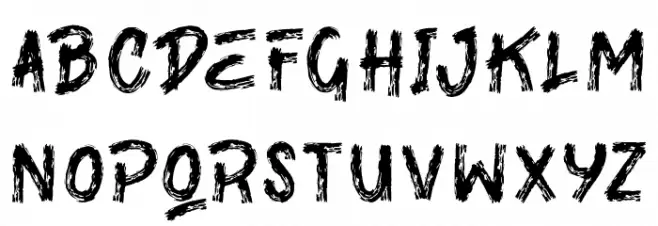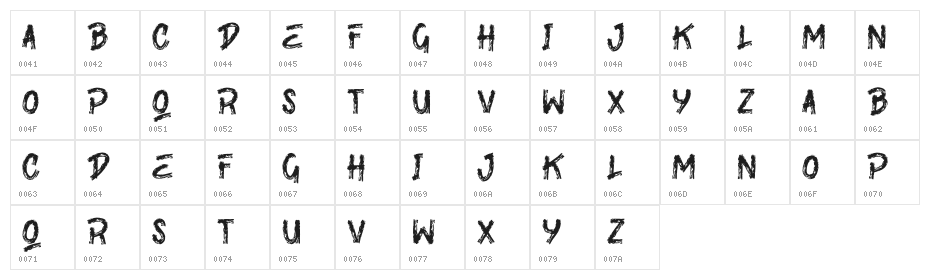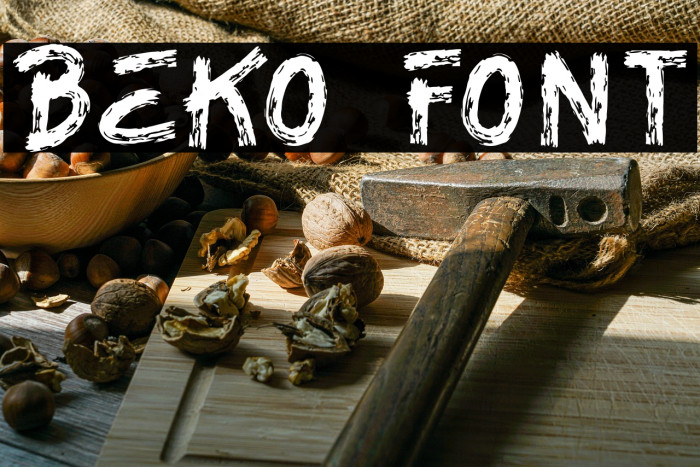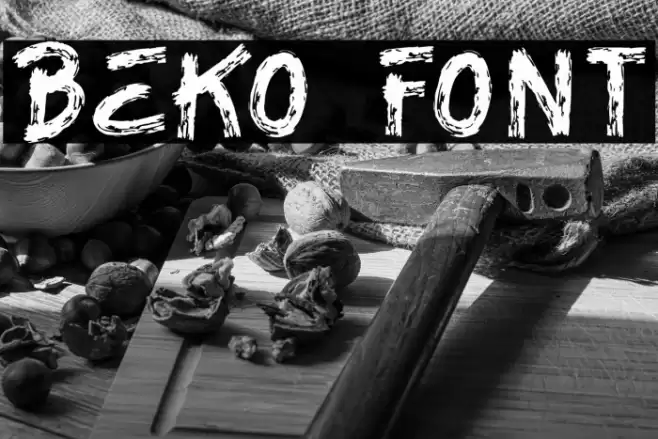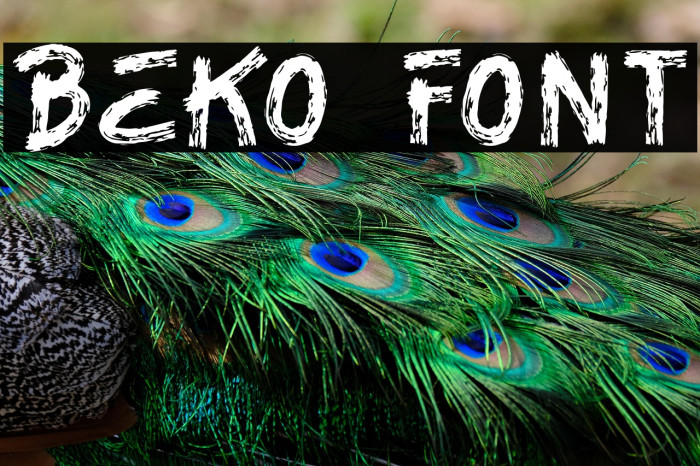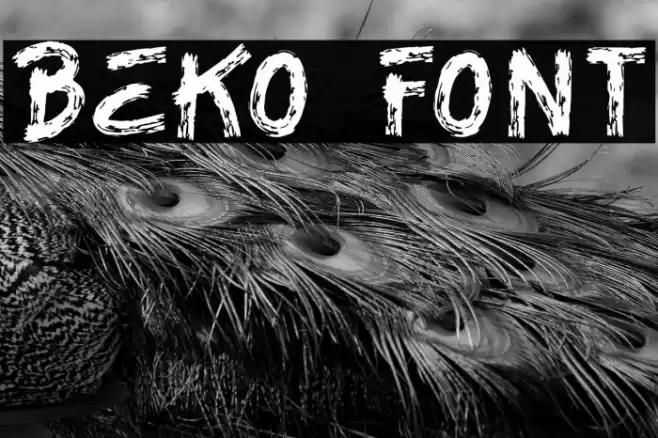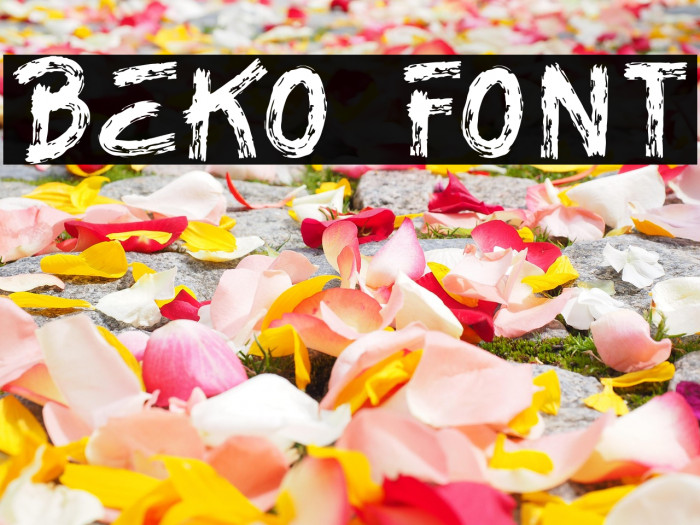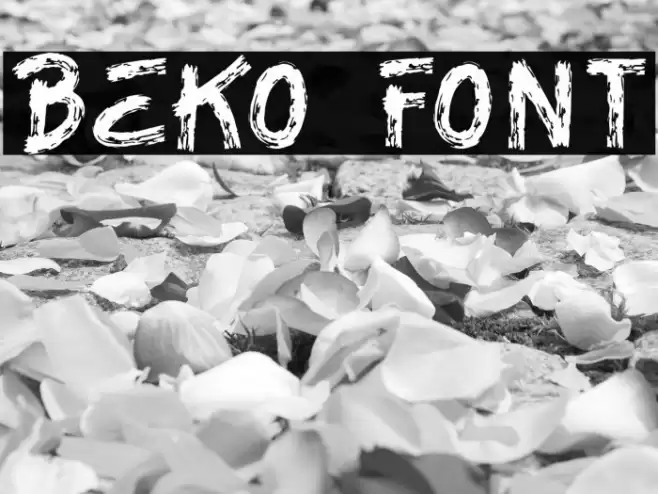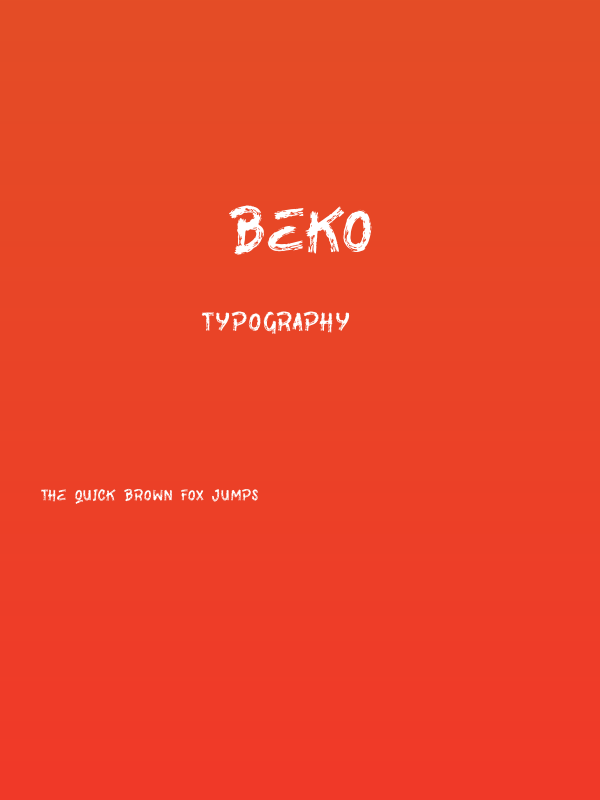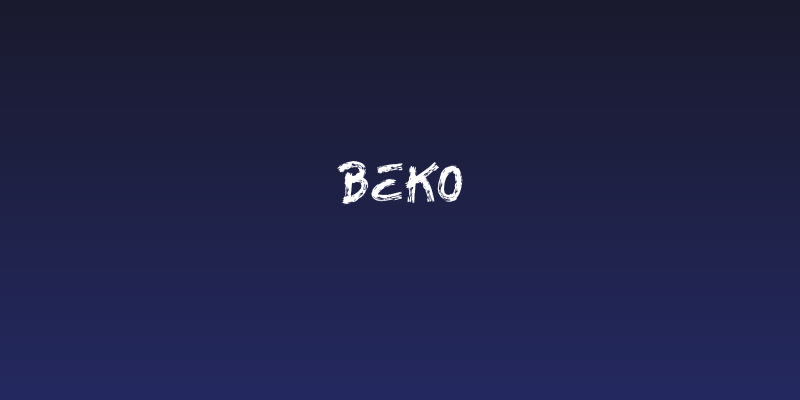
BEKO Font
BEKO Description
This font features a bold, expressive style with a hand-drawn appearance. The characters are designed with rough, textured strokes that give them a dynamic and energetic feel. Each letter has a unique, slightly irregular shape, contributing to its artistic and informal look. The font maintains a consistent height across all characters, while the width varies slightly, adding to its organic aesthetic. The uppercase letters are prominent and eye-catching, making them suitable for impactful designs. The overall style is reminiscent of brush strokes or graffiti, making it ideal for creative and unconventional projects.